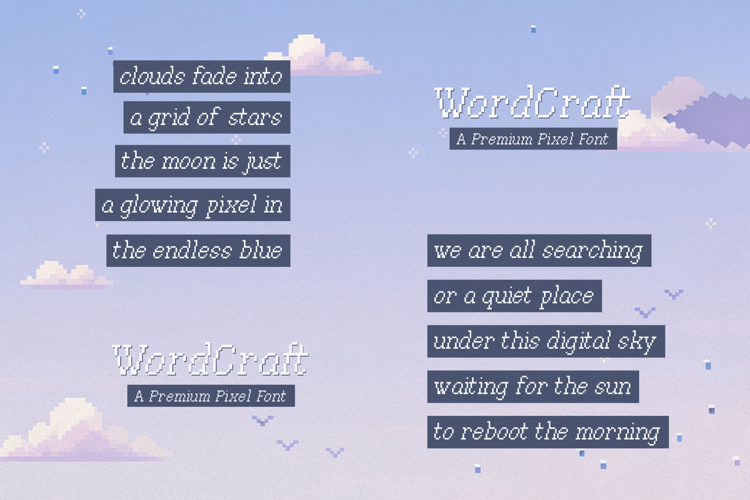
Word Craft Font
Word Craft | Premium Pixel Font, is suitable for any projects such as: logos, branding projects, homeware designs, product packaging, mugs, quotes, posters, shopping bags, t-shirts, book covers, name card, invitation cards, greeting cards, label, photography, watermark, special events, and all your other lovely projects that need a Pixel f taste.